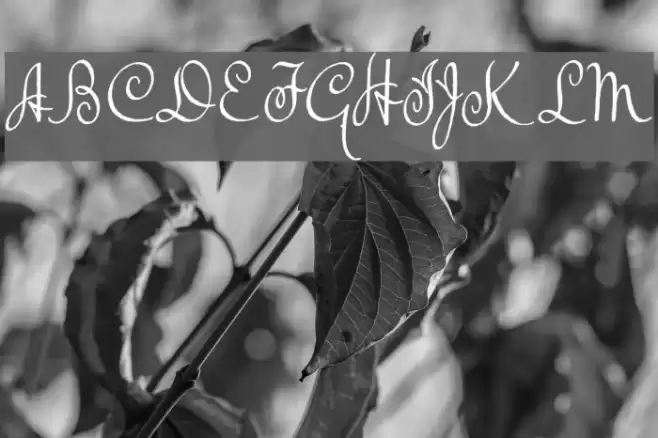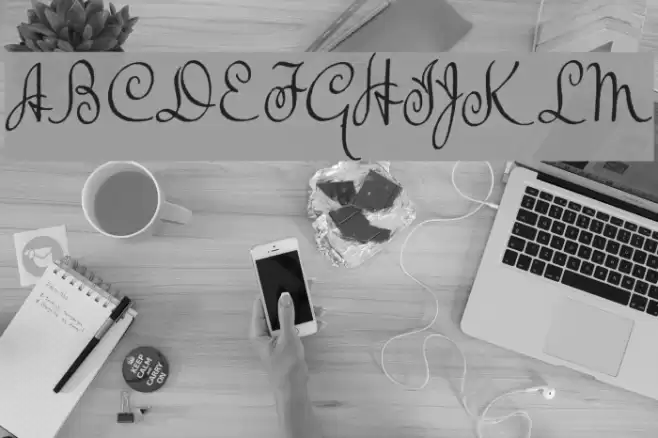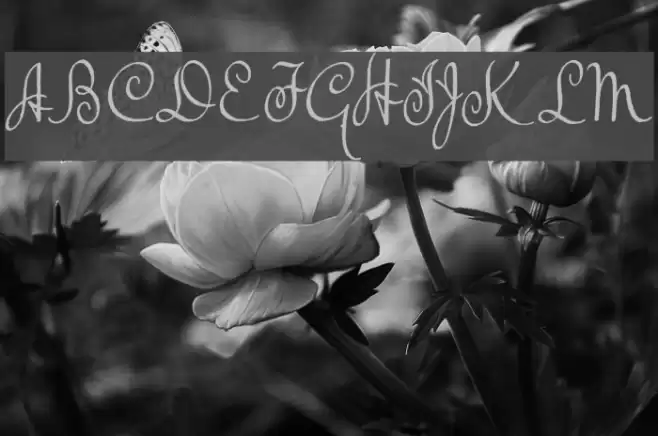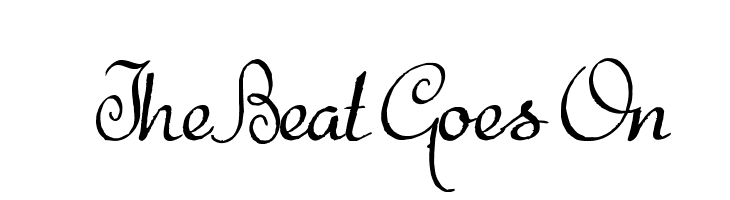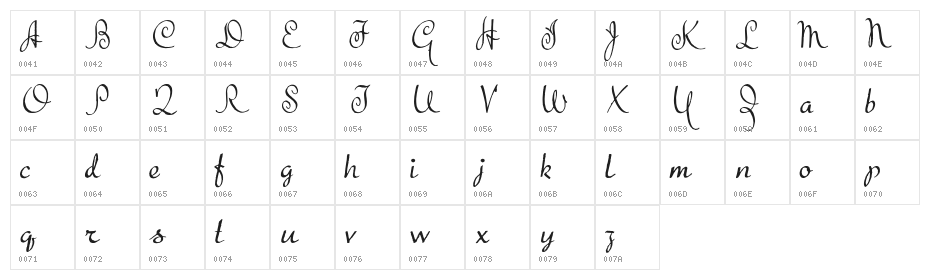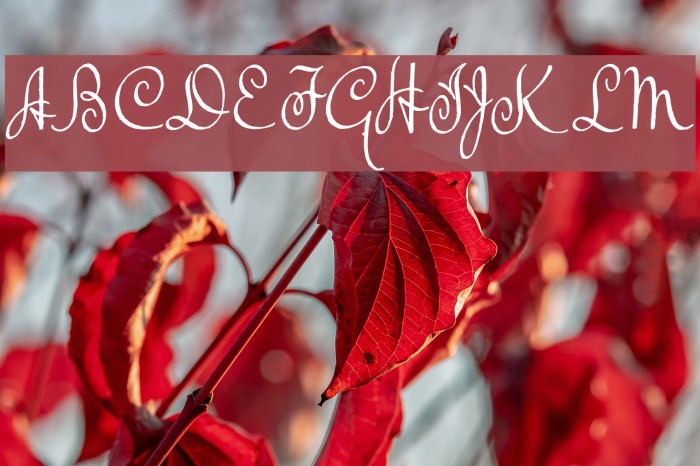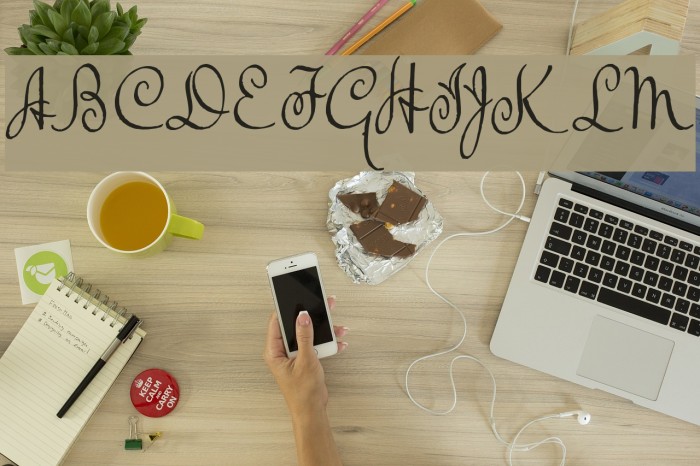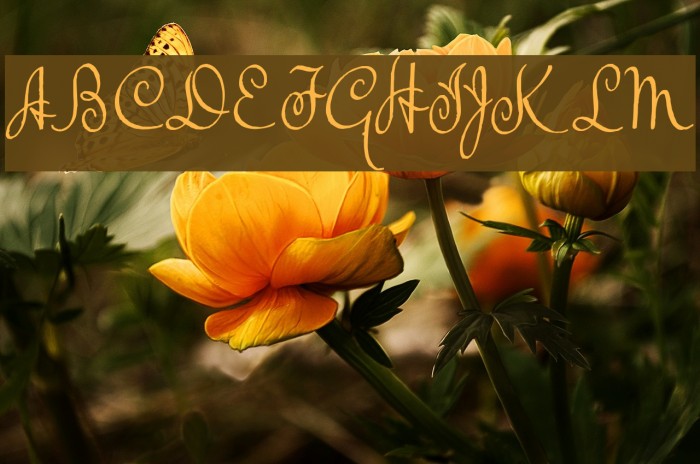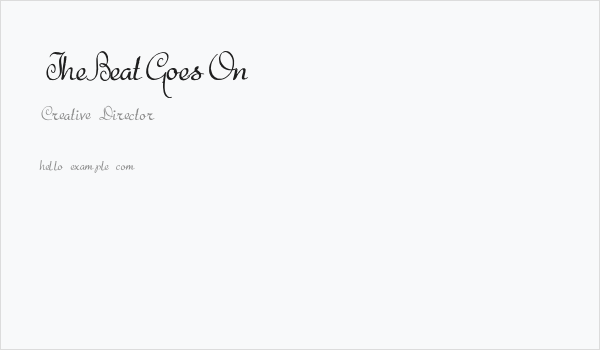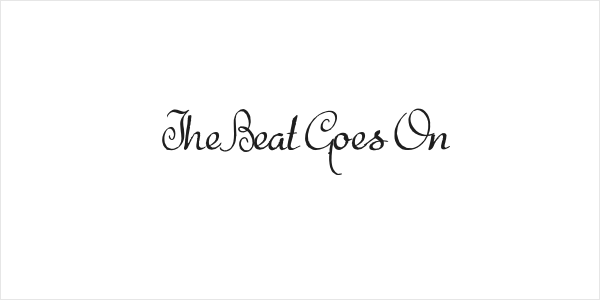
TheBeatGoesOn Font
TheBeatGoesOn Description
This font exhibits a unique blend of elegance and flair, characterized by its flowing, cursive style. The uppercase letters are ornate, with intricate loops and swirls that add a touch of sophistication. The lowercase letters maintain a consistent fluidity, with some characters featuring distinctive flourishes. The numbers and special characters are designed to complement the overall aesthetic, maintaining the same graceful curves. This font is ideal for projects that require a personal, artistic touch, such as invitations, greeting cards, or branding materials. Its decorative nature makes it stand out, while still being legible and stylish.
A decorative cursive font with elegant loops and swirls from Uncategorized fonts.
- Proposed Projects: Ideal for invitations, greeting cards, and artistic branding materials.